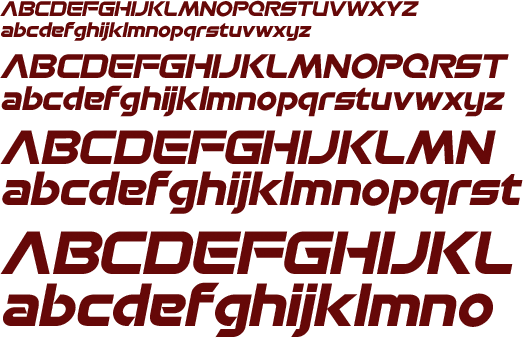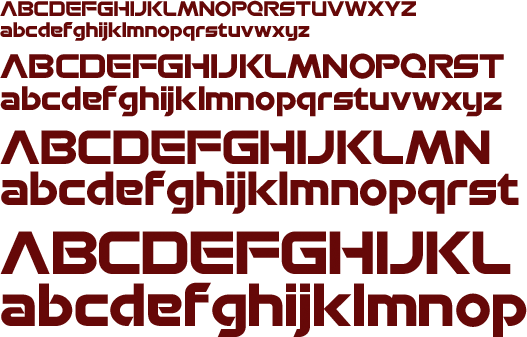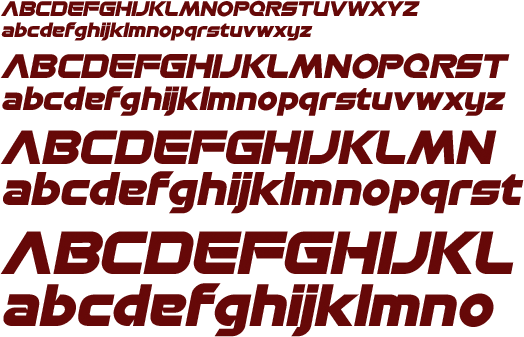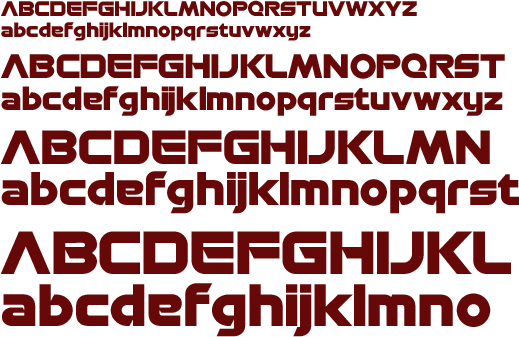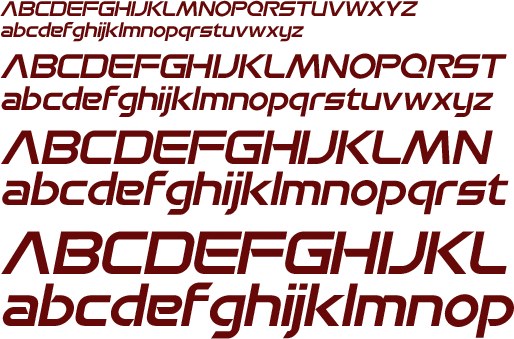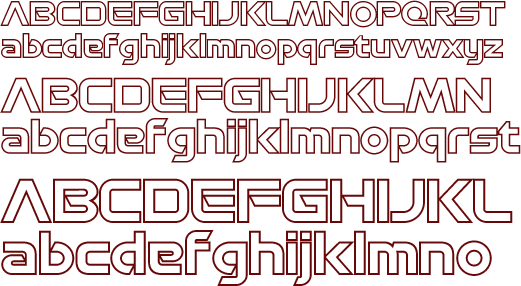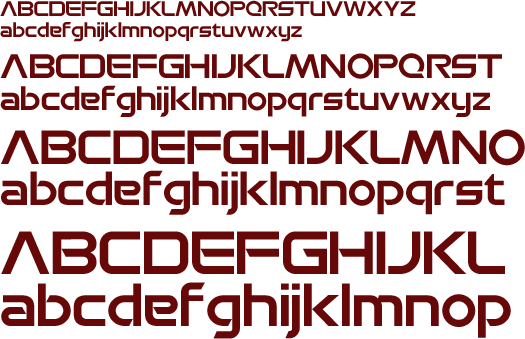
Space™ by David Occhino
A 1970s space font style, updated for the 21st Century with razor-edged crossbars and squarish edges.
Space font - Space Mountain font by David Occhino Design
Space has a set of 240 glyphs:
• Latin A-Z, a-z • Complete punctuation • International characters • Mathematical symbols
• Space™ Regular
• Space™ Oblique
• Space™ Bold
• Space™ Bold Oblique
• Space™ Heavy
• Space™ Heavy Oblique
• Space™ Outline
• The following type specimens use all six styles of the Space™ typeface family.